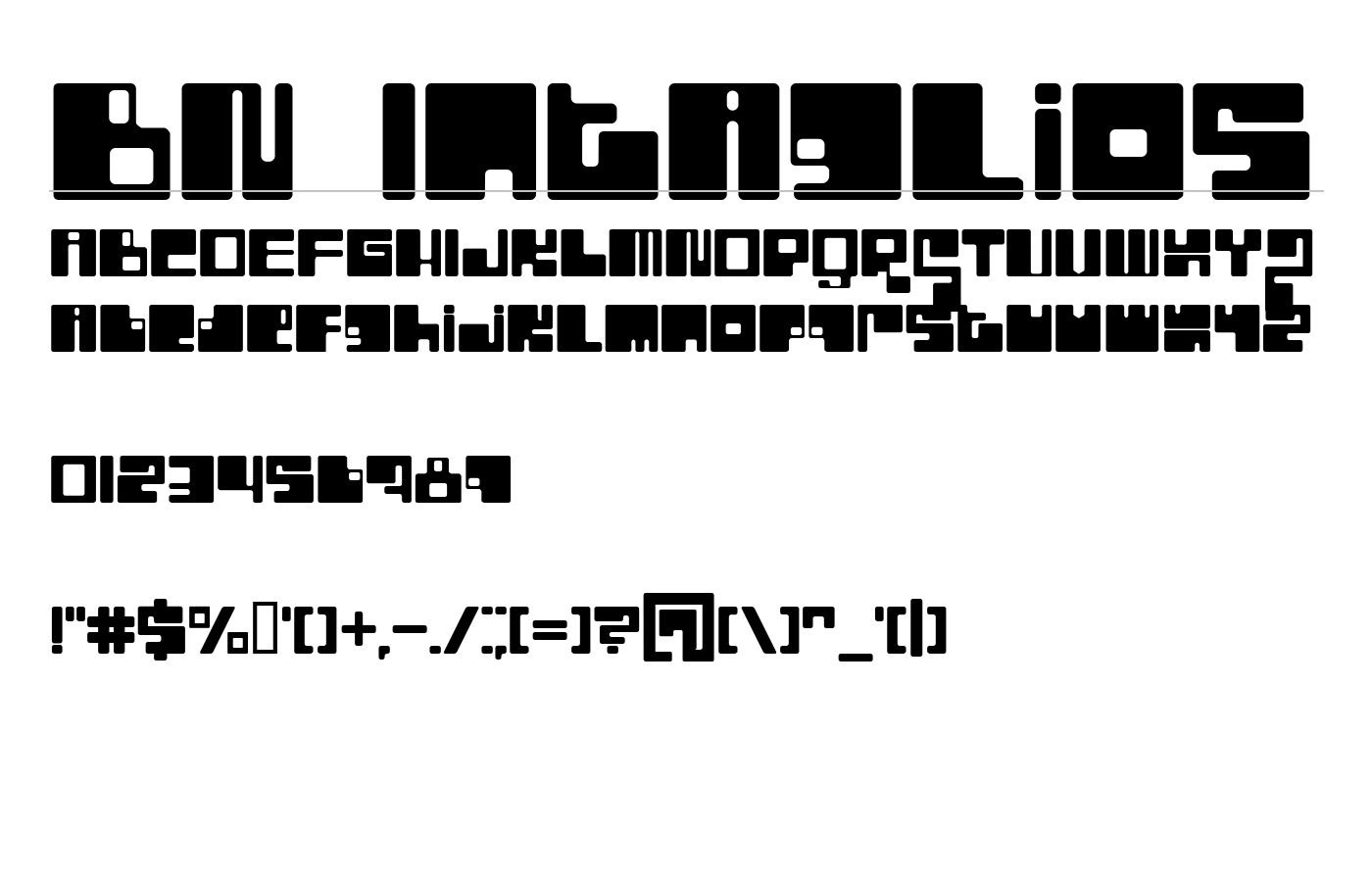
BN Intaglios is a bold, blocky sans serif font with a futuristic and geometric style characterized by its thick, uniform strokes and square-shaped letterforms with rounded corners and internal cutouts. This font creates a strong, tech-inspired feel that works well for headlines, logos, and designs seeking a bold, modern, and distinctive appearance with a touch of retro digital aesthetics. Its unique shapes and solid weight make it ideal for impactful display use rather than lengthy body text.
BN Intaglios Font
About BN Intaglios Font